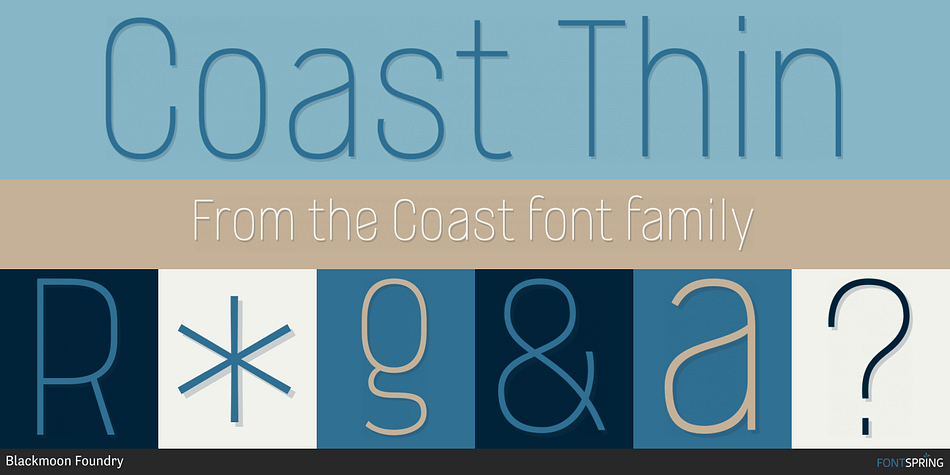
Coast Thin
Designed by Jörg Walter, Coast is a sans serif font family. This typeface has twenty-four styles and was published by Blackmoon Foundry.
Coast is a sans serif type family inspired by enamel signs from the 1920s.
The Coast has a large x-height which gives the font a friendly look and guarantees great performance in very small sizes. The Coast family also works great in huge sizes since it has some very special and highly elaborated characters like the small “e” and “g” which distinguishes it from an ordniary sans serif.
The family includes real small caps, small capital figures, medieval and monospaced lining figures for information in tables.
Coast and Coast Wide both come with a variety of special characters, alternates, mathematical symbols and the unusual ligature “rt”. Also on board: the german capital letter “sharp s”.